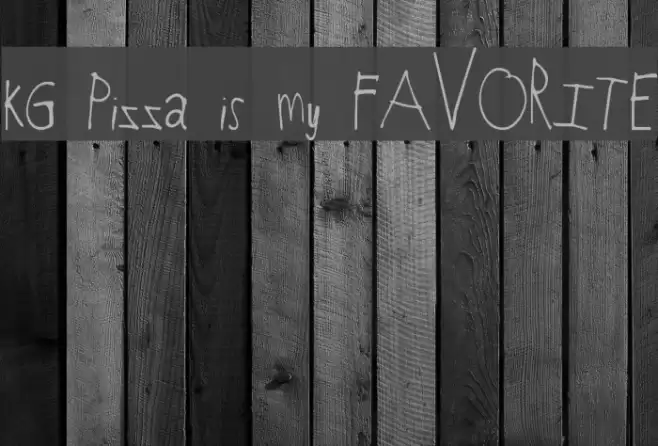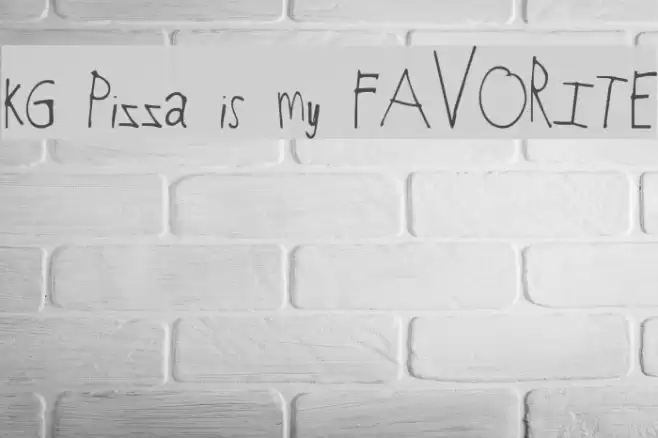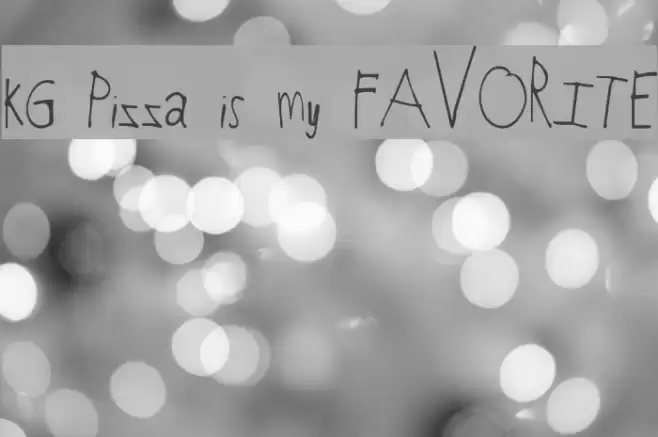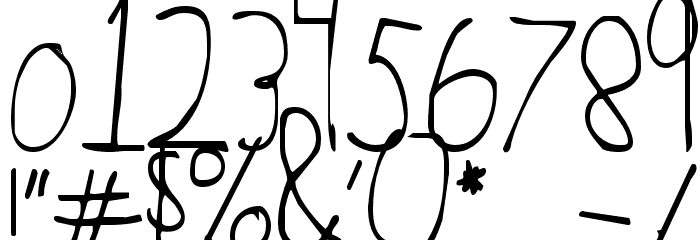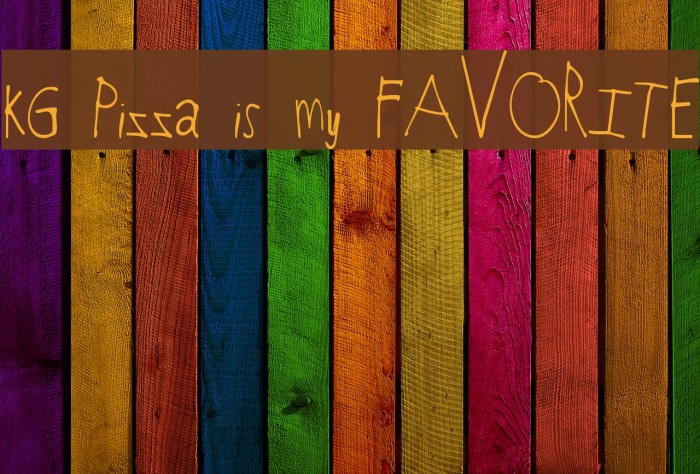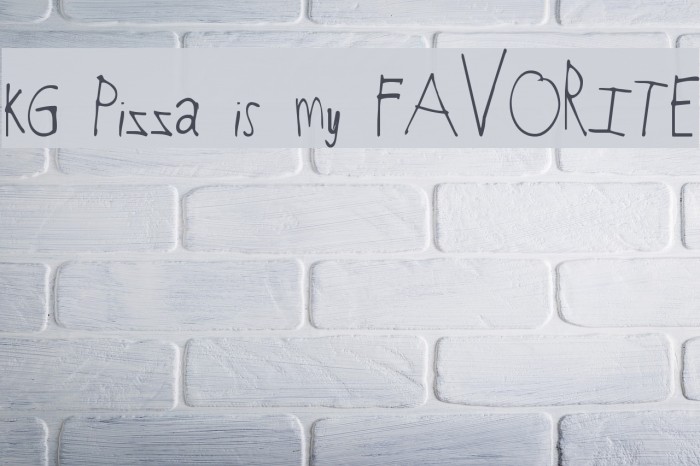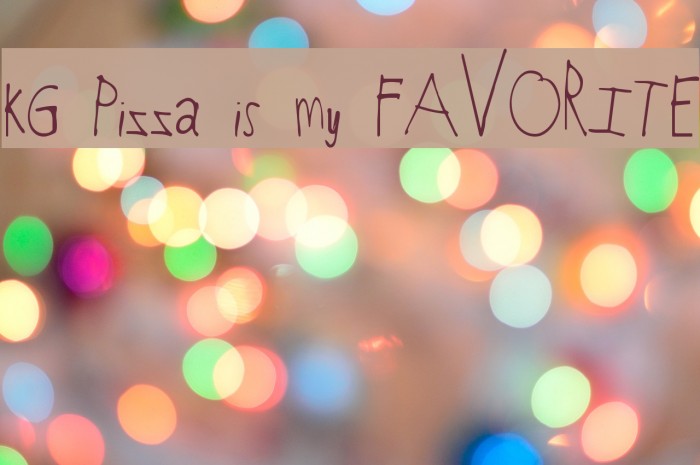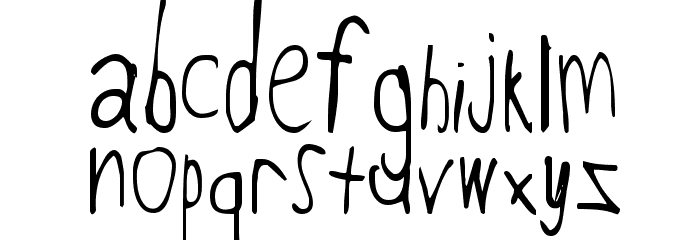
KG Pizza is my FAVORITE Font
KG Pizza is my FAVORITE Description
This font features a playful and informal handwritten style, characterized by its irregular and quirky letterforms. The uppercase letters are tall and slightly narrow, with varying stroke widths that add a sense of spontaneity. The lowercase letters maintain a consistent style, with some letters like 'g' and 'y' having distinctive loops and tails. Numbers are similarly playful, with unique shapes that stand out. Special characters are creatively designed, maintaining the overall whimsical feel. This font exudes a casual and friendly vibe, making it suitable for projects that require a personal touch.
A playful, handwritten font with quirky, irregular letterforms from Uncategorized fonts.
- Proposed Projects: Ideal for children's books, greeting cards, playful branding, and informal invitations.
- Overall Style: Casual, Playful
- Use Case: Headlines, Informal text, Creative projects